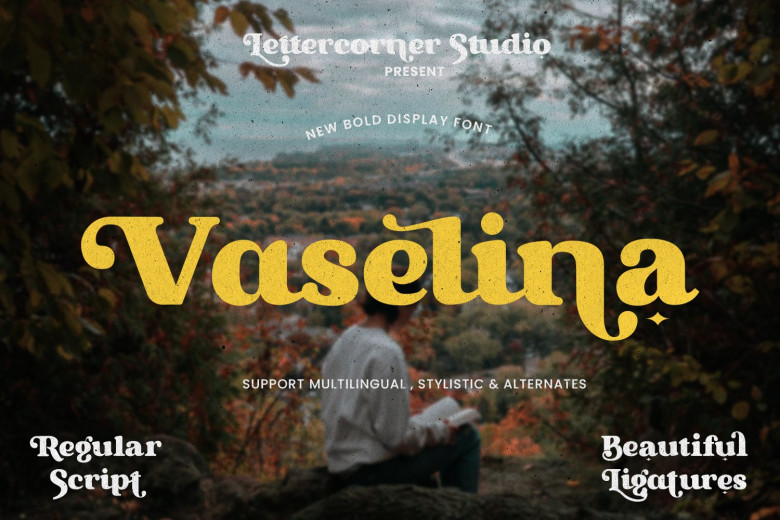
Vaselina Font
Vaselina modern vintage serif font with fresh and beautiful look, It is modern vintage look. It has extra glyphs to give you alternative options for all the design with swirly extras will make it classy and elegant. Vaselina is perfect font for any projects that needs modern style or even for modern/retro design, branding, logo, crafting, sticker, sublimation, and wedding invitation and lot more!
Vaselina Serif Font